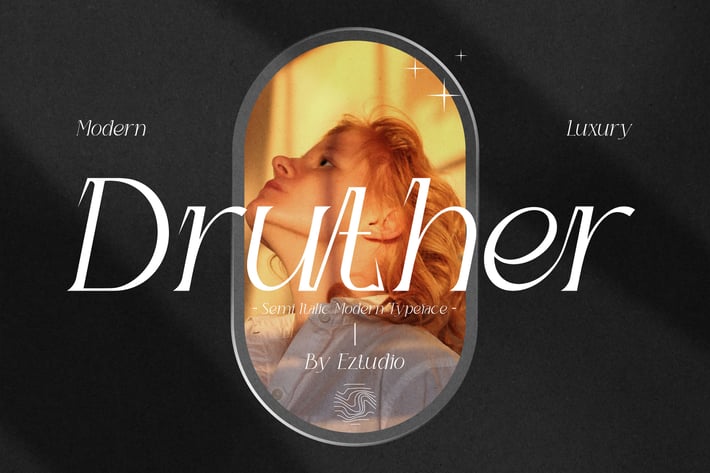
Modern Semi Italic - Druther Font
Author eztudio
Druther is fonts that include uppercase letters, lowercase letters, numerals, ligatures & a large range of punctuation. Modern & Luxury Look. Created for poster, web design, branding, illustrations, badges and some other works.